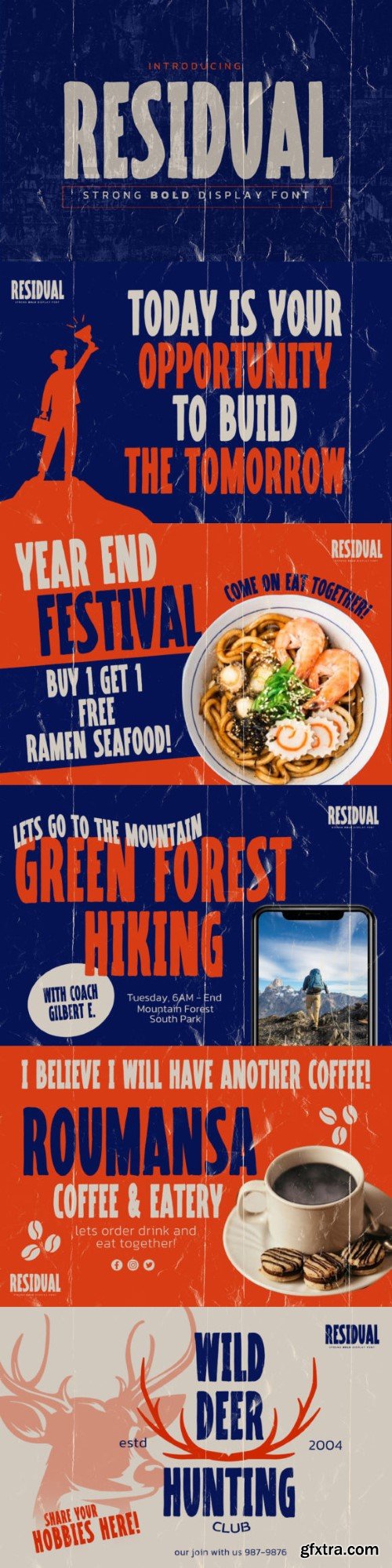
残留字体
Residual is a cool, bold and brushed display font. No matter the topic, this font will be an incredible asset to your fonts’ library, as it has the potential to elevate any creation.